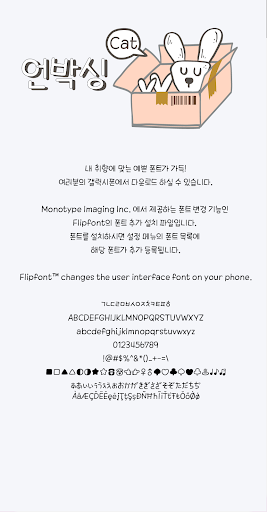
CatDalcomPpojjak
Cat unboxing is a happy font filled with the excitement and anticipation of receiving a gift or package. In a square-box font, the initial consonant is enlarged and the size of the initial consonant is reduced to contrast the size of the initial consonant and the initial consonant is tilted to express the pleasant feeling of opening the gift box. The circle of ㅇ,ㅎ is designed in a cute garden style, and the serif of ㅊ,ㅎ is tilted more to the right than the slope of the initial consonant, making it unique. Untact era~ Feel the joy of unboxing through cat unboxing.♡